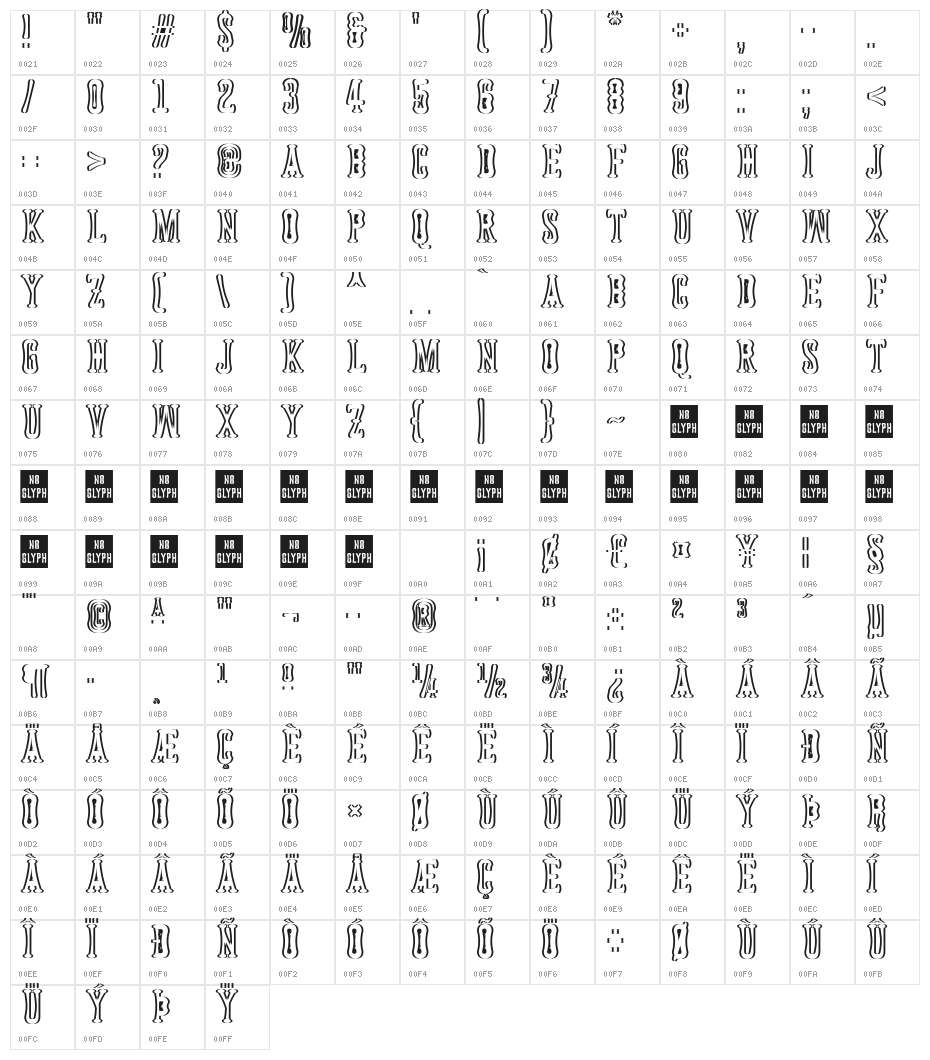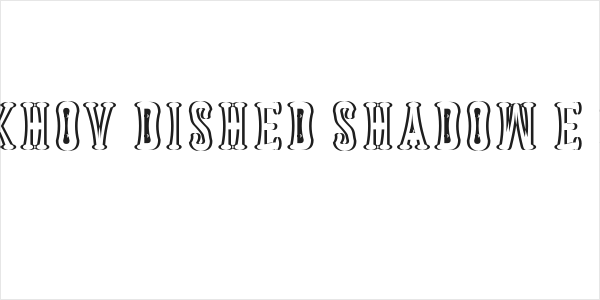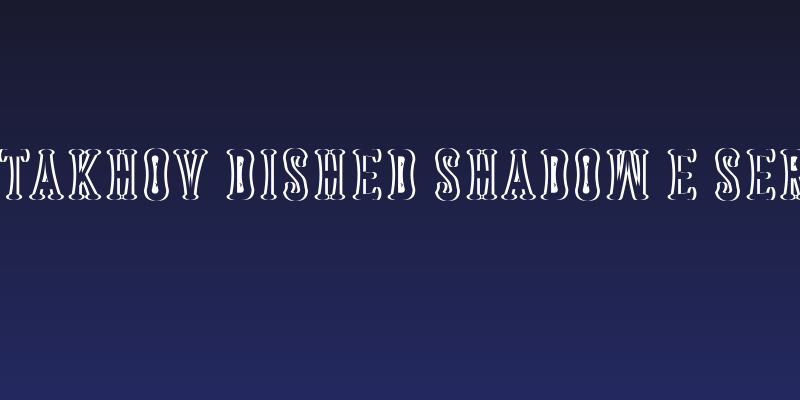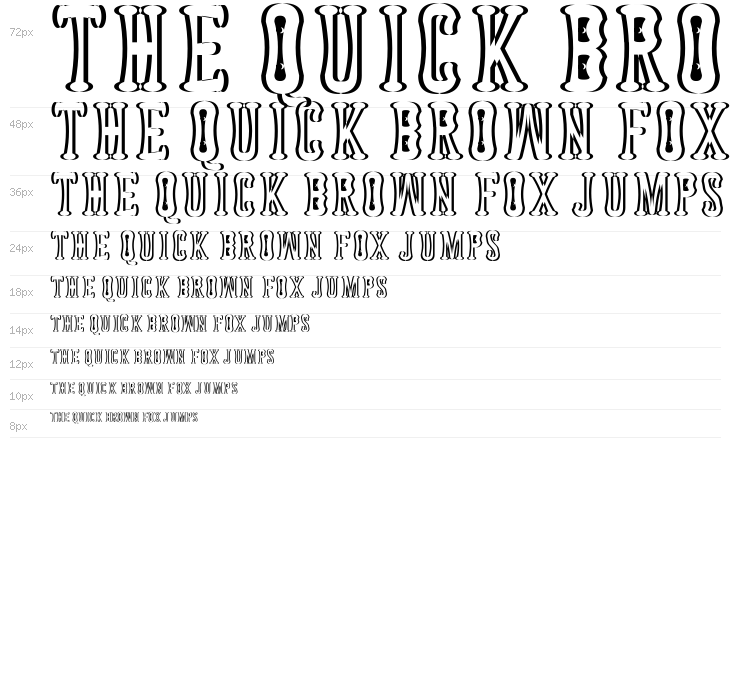
Astakhov Dished Shadow E Serif Font
Astakhov Dished Shadow E Serif Description
This font features a bold and decorative style with a shadow effect that gives it a three-dimensional appearance. The characters are serifed, with distinct, elongated serifs that add to the ornate design. The shadowing is consistent across all characters, providing a sense of depth and sophistication. The uppercase and lowercase letters maintain a uniform style, while the numerals and special characters complement the overall aesthetic. This font is ideal for creating eye-catching headlines or titles that require a touch of elegance and flair.
Overall StyleVintage
Proposed ProjectsIdeal for vintage-themed posters, book covers, branding, and decorative signage.